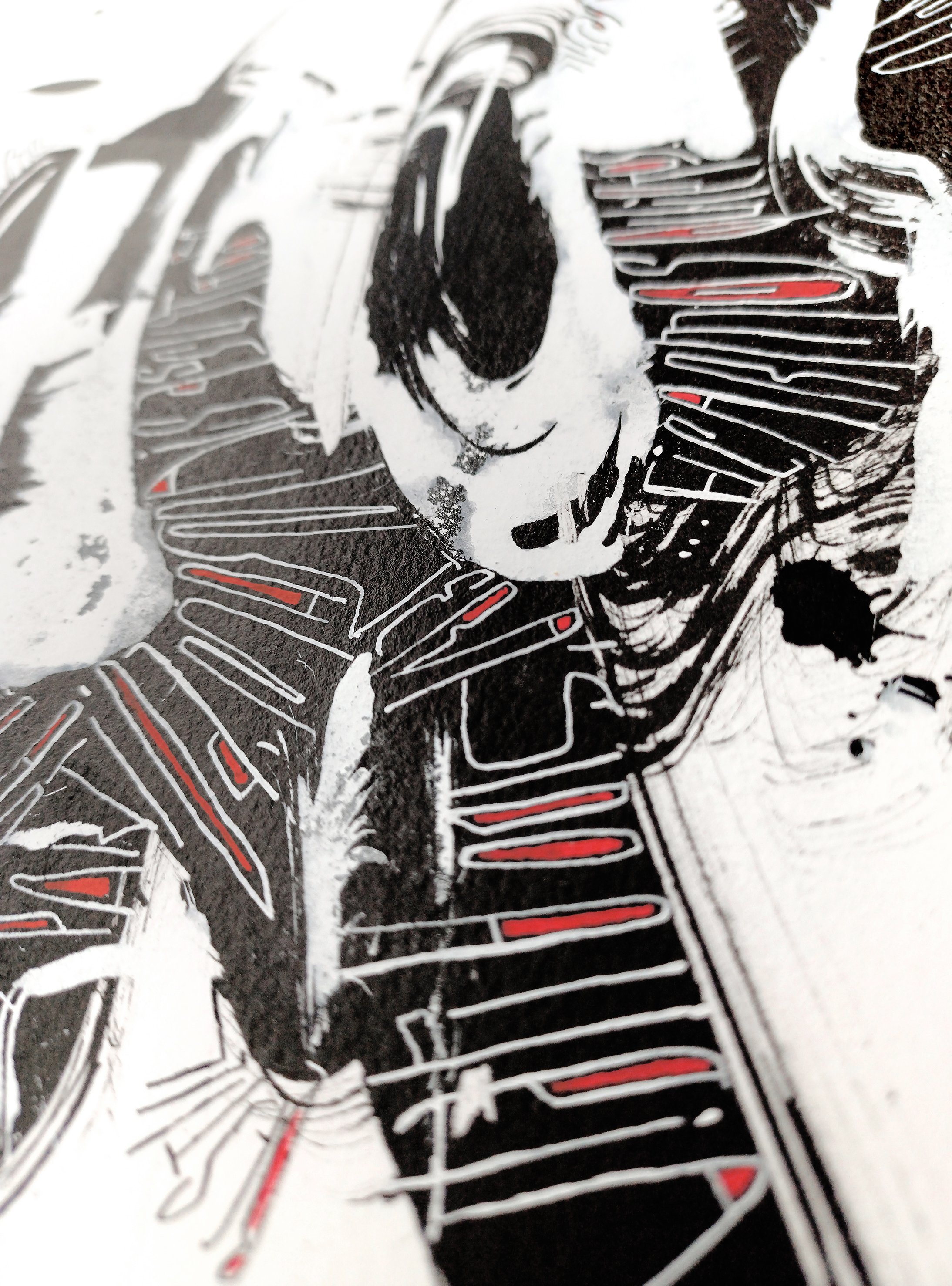
TITLE | Black Series (The Grief) -- Surely overwhelmed by each new departure
From the Black Series (The Grief): Surely overwhelmed by each new departure
The letterforms adapt to the path just like we adapted to the forced journey when we moved away so many times. There's pain and darkness in the life of immigrants, but we keep carrying on because life won't stop or wait until we're ready. So we go with the flow in order to survive the changes: we learn to be movement.
In 2021, at the first anniversary of my father's death, I wrote him a letter trying to get some answers about our wandering fate:
'Surely overwhelmed by each new departure, but more frightening must have been the idea of us staying still. How many times was it necessary to start over? What were we escaping from and what did we go towards each time?'
This text is written in Portuguese, Spanish and English, in order to represent the different countries and stages of my own life.
Ines Sotomayor
Ines Sotomayor might have had an unusual life journey: born in Argentina, her family moved to Brazil where she lived for 15 years. In her final years of high school, they moved again, this time to Portugal, where she graduated in a Spanish school. Finally, in 1993, she came to Buenos Aires and started college right away.
To soothe this immigrant grief, she drew, painted and wrote, and daydreamed that she would someday become a 'real' artist. She didn't attend art school, however, graduating instead as a Graphic Designer and a Front End Developer. She started studying calligraphy formally in 2003 – with Marina Soria, a talented artist, and a passionate, generous teacher – and also began developing websites that year.
For this reason, Ines likes to say she uses both sides of her brain: 'I write code as someone who knits. I write letters as someone who meditates. I write, as someone who breathes.'
Her introduction to calligraphy occurred while a student at the University of Buenos Aires, in typography classes. It was love at first sight! It felt great to learn this skill in the midst of the computer craze in the design field. Her passion for letters grew so strong that she began teaching classes at the university for almost a decade, specialising in Typography. From then, she has never stopped learning every formal hand and expressive calligraphic styles.
She is currently venturing into the world of watercolours, and has been taking classes with the wonderful calligraphers such as Roballos/Naab, Marina Soria, Silvia Cordero Vega, Giovanni De Faccio, Cláudio Gil, Luca Barcellona, Christopher Haanes, Cora Pearl, Amity Parks, Yukimi Annand, Massimo Pollelo, Mike Gold, John Stevens and Brody Neuenschwander.
'I love calligraphy simply because I love the written word and mostly because I crave for more beauty in the world,' she says.